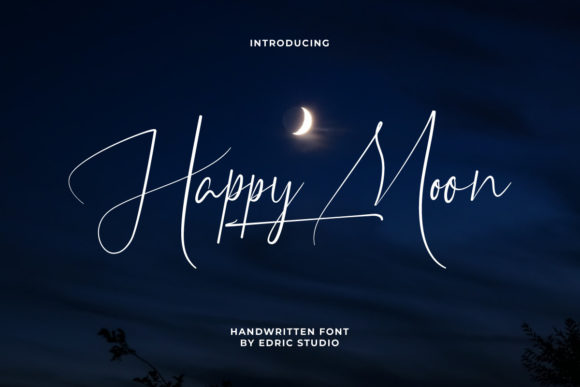
Happy Moon Font
Happy Moon is a thin and elegant script font. This versatility will appeal to a wide range of crafty ideas, from letterheads and titles, to stationery.